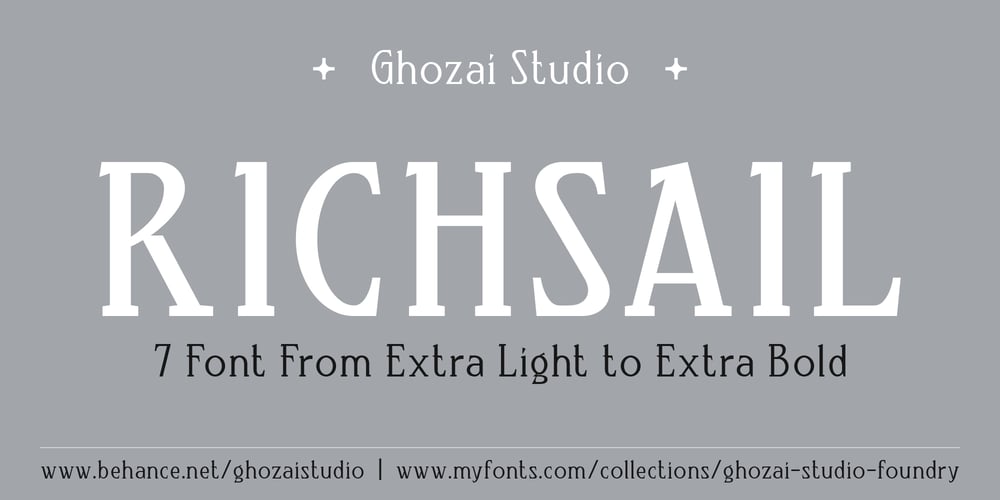
Richsail Font Family was designed by Manzur Ghozaali and published by Ghozai Studio. Richsail contains 7 styles and family package options. Richsail is a serif font that comes with 7 styles. Combining a bold and thin stroke to give a high contrast and personality for the font, and bring fresh, lively features to its design. With a wide range of styles, ligature, and stylistic alternates features, Narakuis is suitable for any design project such as luxury design (hotel logo, restaurant menu, wedding invitation), fashion, band poster, headline, sport-related designs, and many others.